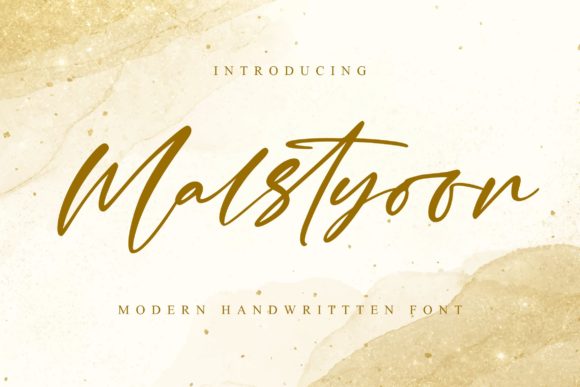
Journey into the world of Malstyoor, a captivating script font that weaves sophistication and freshness into every design. This modern marvel effortlessly blends classic calligraphy with a contemporary twist, making it an irresistible choice for a wide range of creative projects.
Step into the realm of elegance with Malstyoor, where your designs will shine with a touch of timeless grace. Its meticulously crafted characters exude a charm that will enhance your branding projects, leaving a lasting impression on your audience.
Unleash your creativity and let your logo designs flourish with Malstyoor's captivating persona. Its graceful strokes and stylish curves will elevate your brand's identity, capturing attention and leaving a mark of distinction.
Elevate your wedding designs to new heights of beauty with Malstyoor's enchanting presence. Its delicate details and flowing lines will add a touch of romance and elegance to your invitations, menus, and signage, creating a truly unforgettable celebration.
Engage your audience on social media with Malstyoor's captivating allure. Its visually stunning characters will bring your posts and stories to life, ensuring that your content stands out from the crowd and resonates with your followers.
Make your advertisements pop with Malstyoor's striking presence. Its bold strokes and dynamic forms will command attention and leave a lasting impact, enticing your customers to engage with your brand and explore your offerings.
Let Malstyoor's artistry enhance the packaging of your products, transforming them into exquisite masterpieces. Its intricate details and flowing script will allure customers, creating a sense of exclusivity and desire that will drive sales.
Infuse your product designs with a touch of sophistication with Malstyoor's enchanting aura. Its timeless elegance will add value to your creations, making them stand out on shelves and captivate the hearts of consumers.
Unleash your creativity with Malstyoor's versatility, allowing your imagination to soar. Whether it's labels, photography, watermarks, invitations, or stationery, this versatile font will add a touch of magic, transforming your projects into works of art.